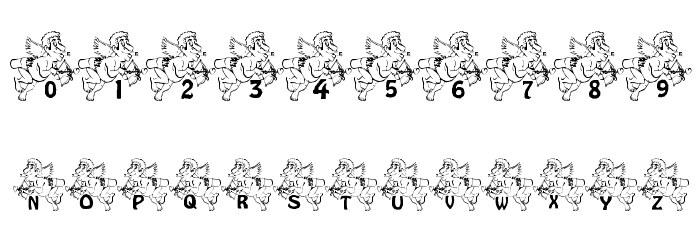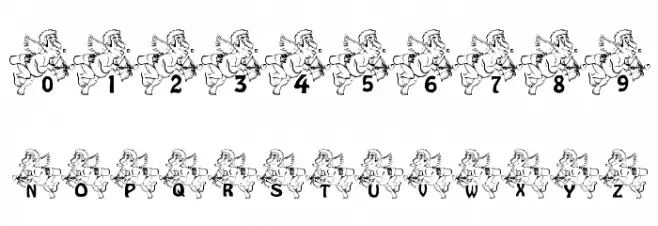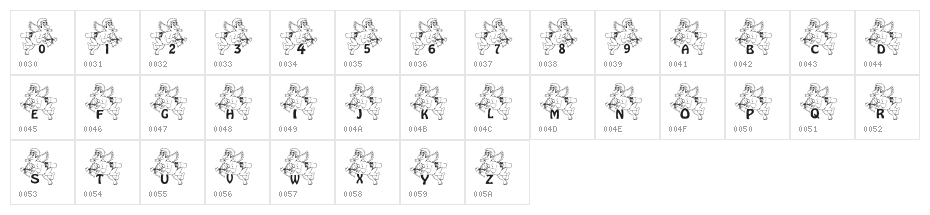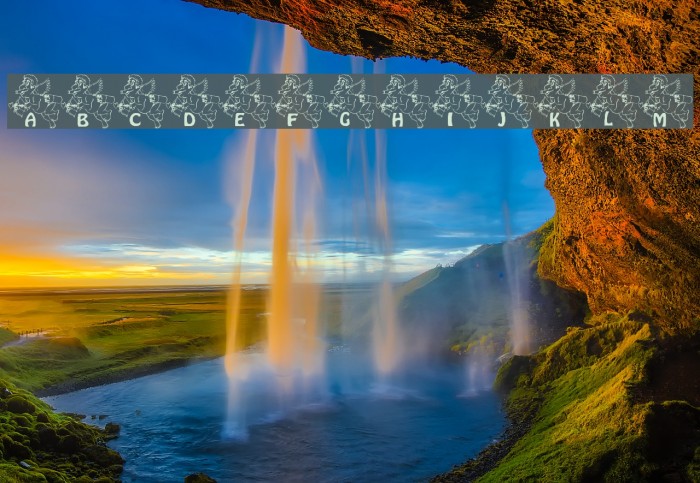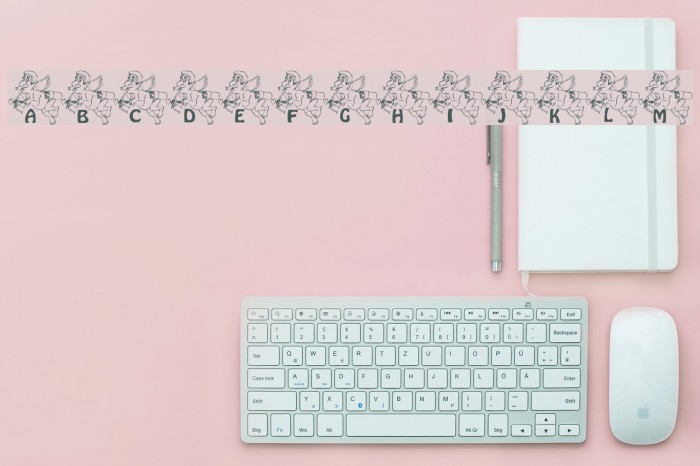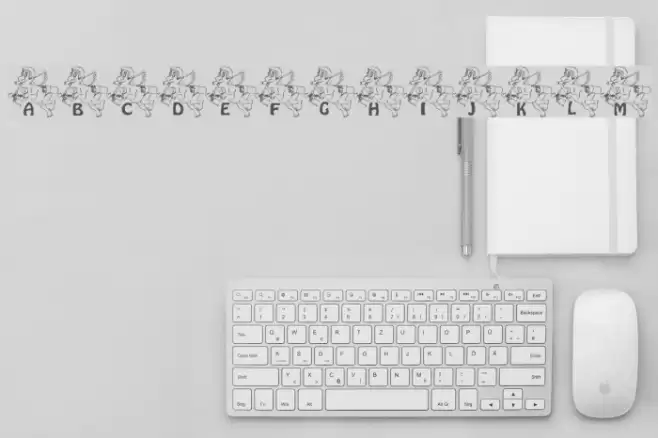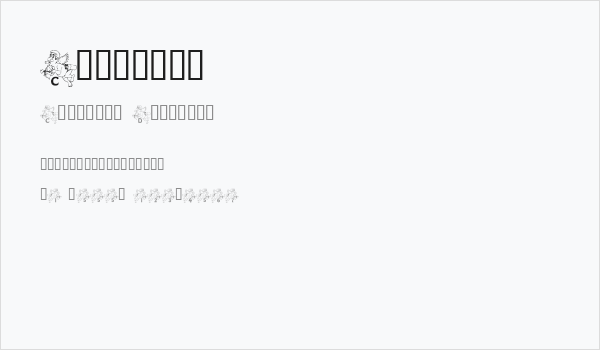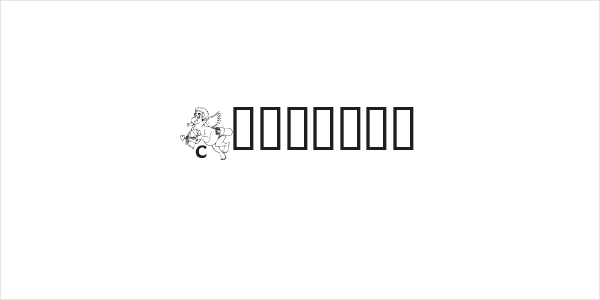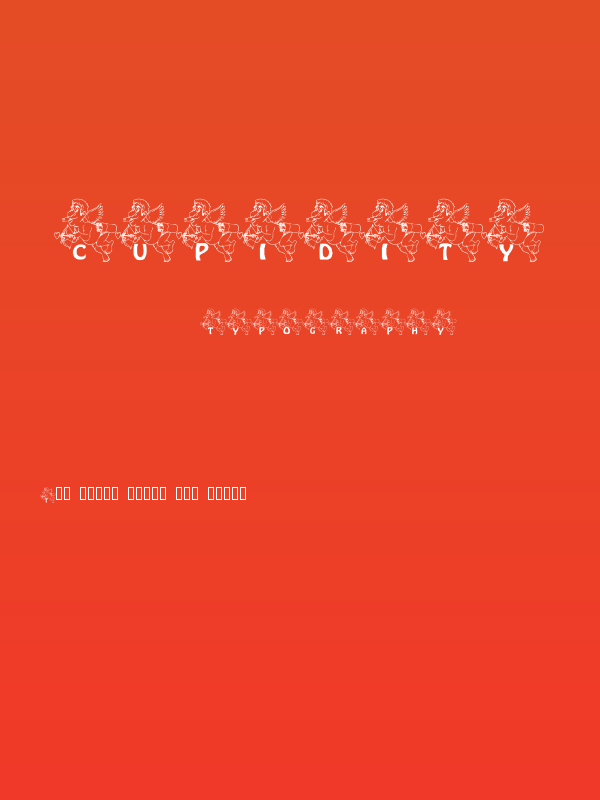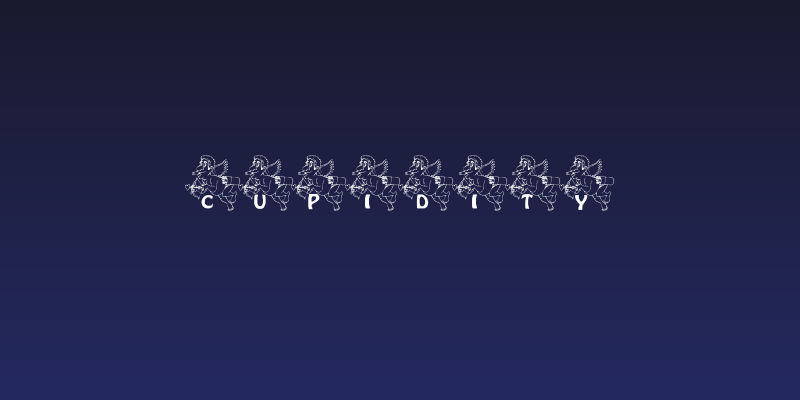
Cupidity Font
Cupidity Description
This font features a playful and whimsical design where each character is accompanied by a small cherub illustration. The letters are bold and clear, making them stand out against the intricate cherub designs. The cherubs add a decorative and romantic element, making the font suitable for themed projects. The uppercase and lowercase letters maintain a consistent style, ensuring readability while adding a touch of charm. The numbers and special characters are similarly styled, providing a cohesive look across all elements.
Use CaseHeadlines, Logos, Decorative text
Proposed ProjectsIdeal for wedding invitations, Valentine's Day cards, romantic-themed posters, and decorative projects.